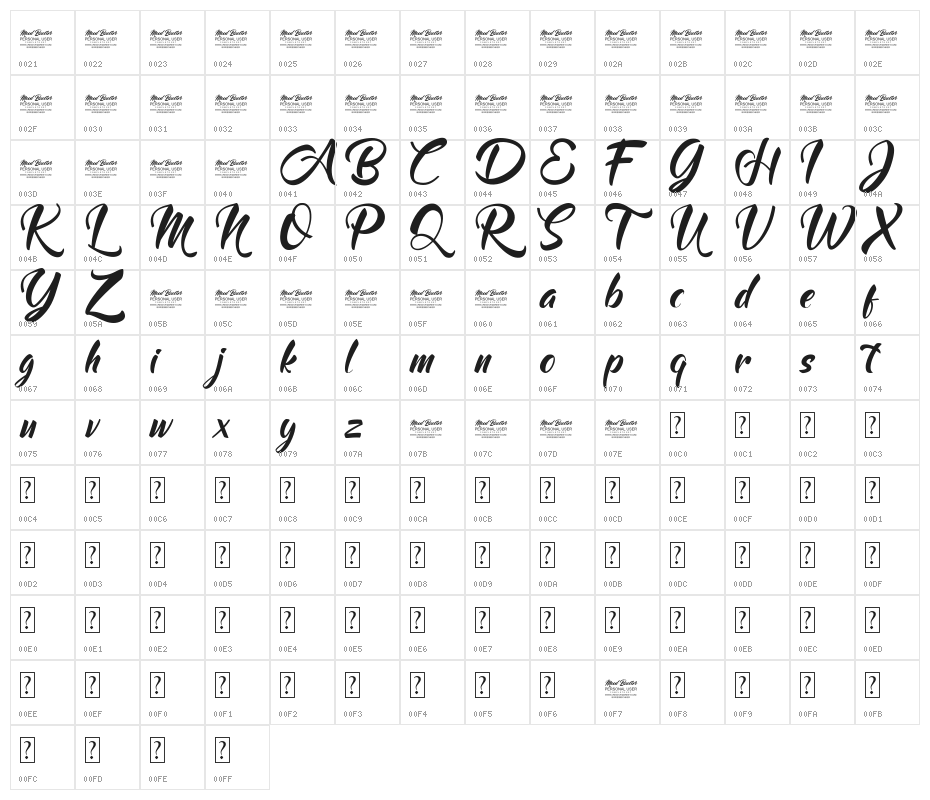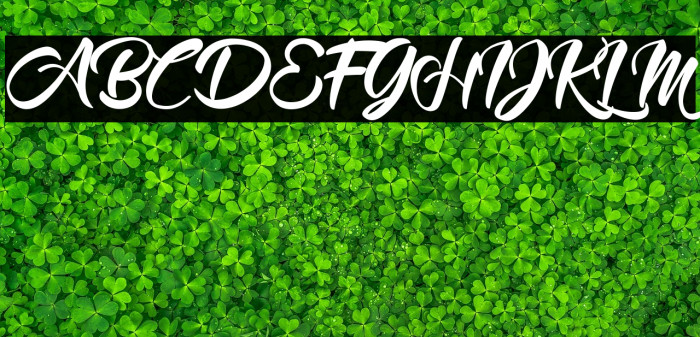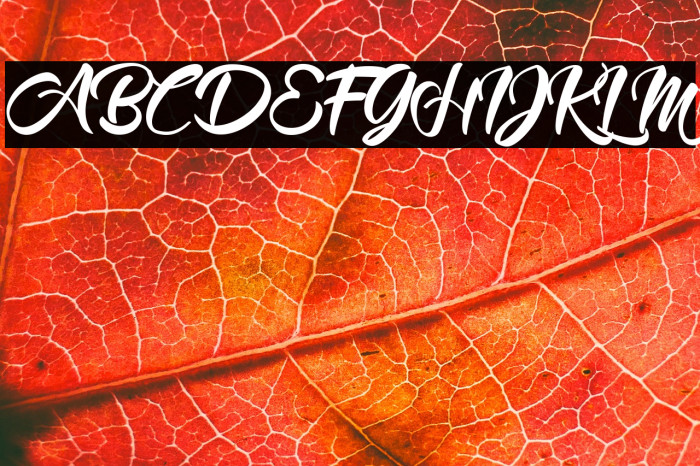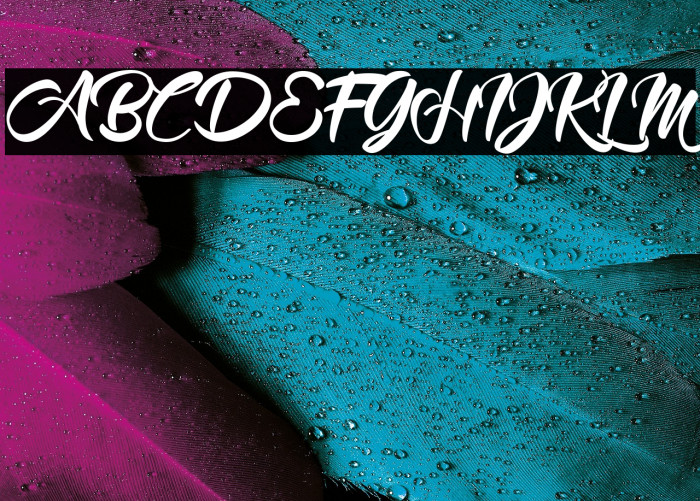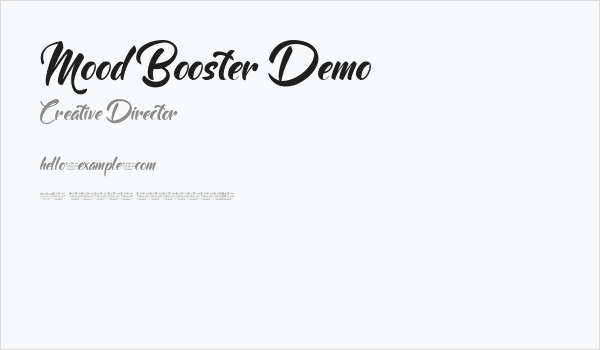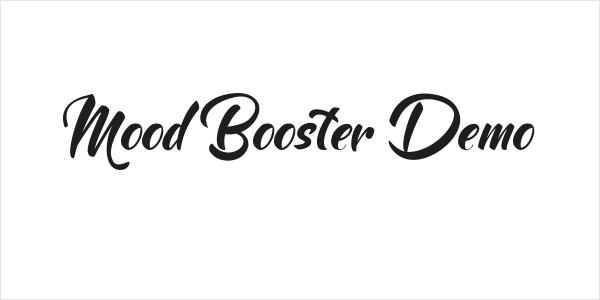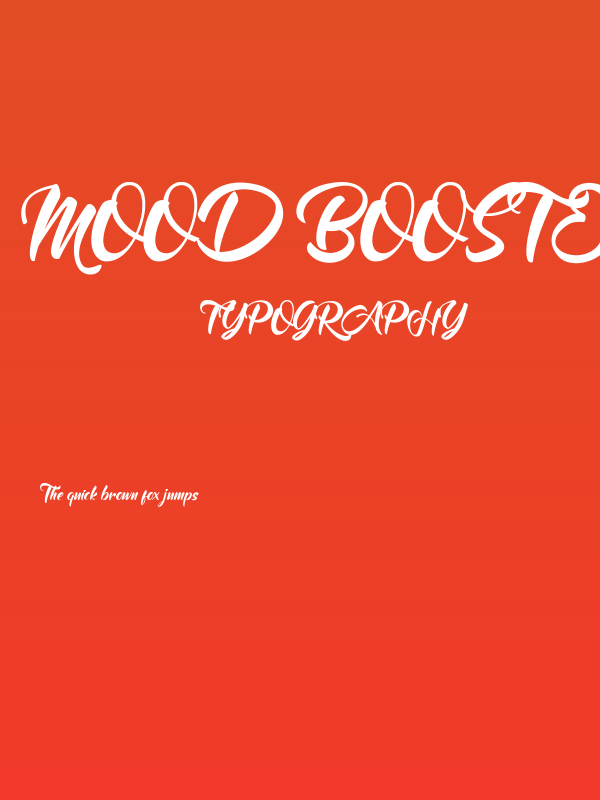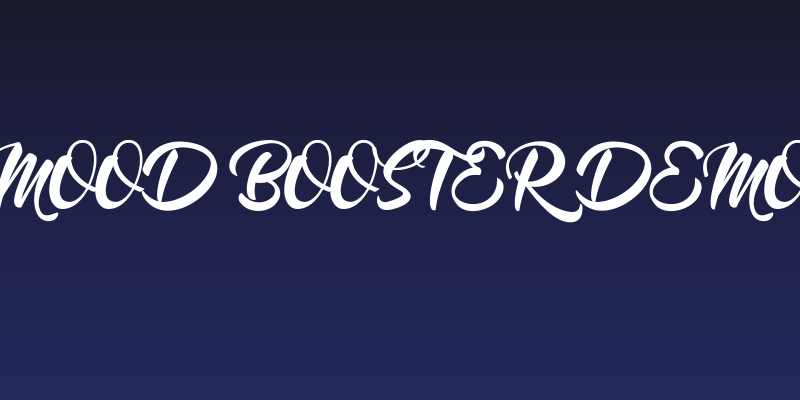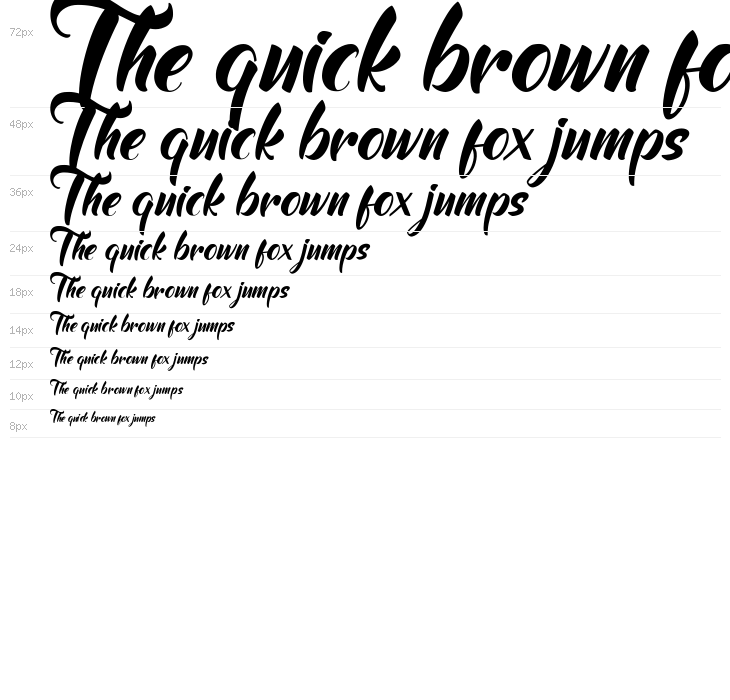
Mood Booster Demo Font
Mood Booster Demo Description
This font features a dynamic and expressive script style, characterized by its fluid and flowing letterforms. The uppercase letters exhibit a bold and confident presence, with sweeping curves and elegant loops that convey a sense of movement and energy. The lowercase letters maintain a consistent style, complementing the uppercase with their own graceful and connected strokes. The overall appearance is both artistic and modern, making it suitable for creative and eye-catching designs. The font's unique style is enhanced by its high contrast in stroke thickness, adding to its visual impact. This font is ideal for projects that require a touch of elegance and flair, such as branding, invitations, and headlines.